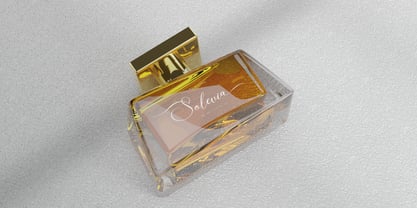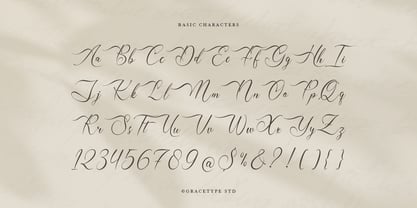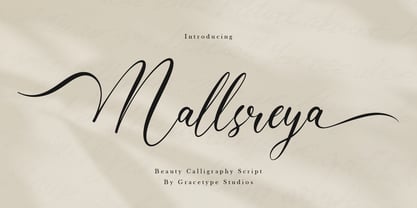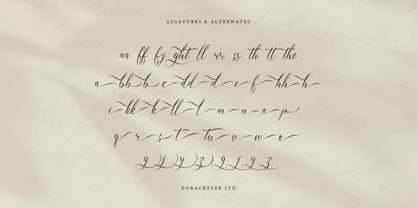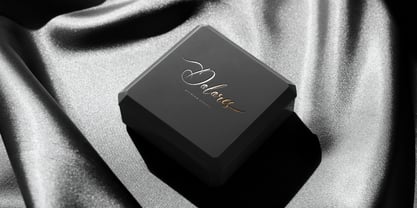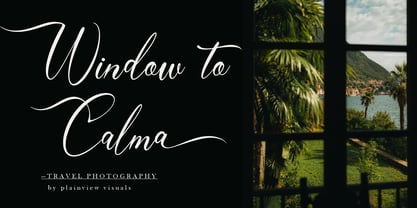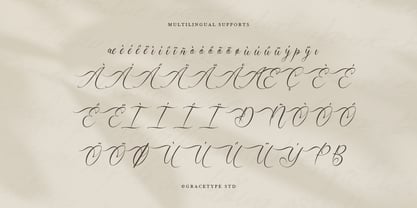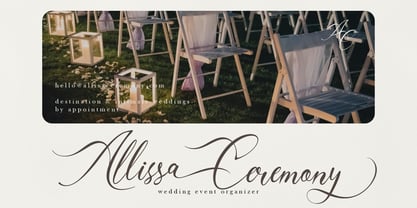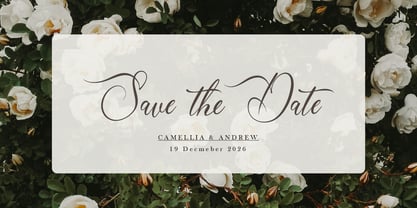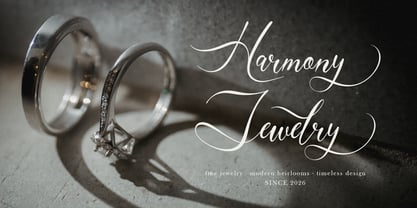
Mallsreya
by Tini Fitriani
Mallsreya | Beauty Calligraphy Script, from Gracetypestudio, suitable for any projects such as: logos, branding projects, homeware designs, product packaging, mugs, quotes, posters, shopping bags, t-shirts, book covers, name card, invitation cards, greeting cards, label, photography, watermark, special events, and all your other lovely projects that need a Script taste.